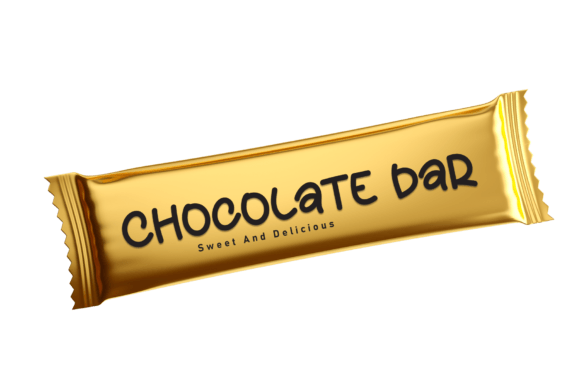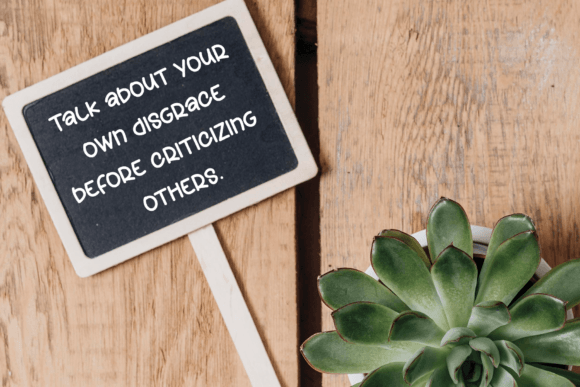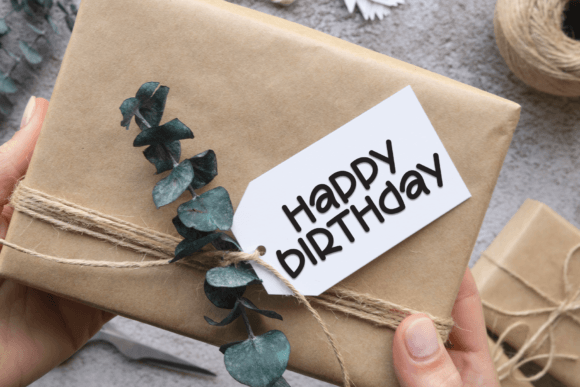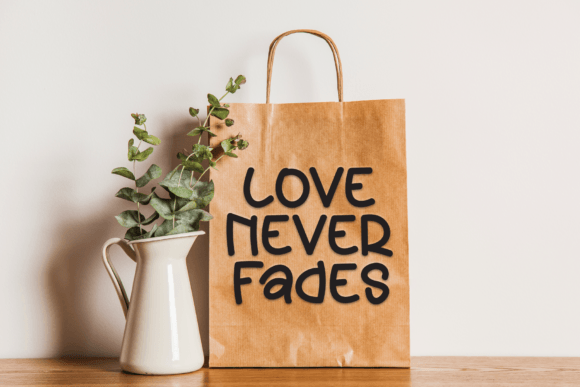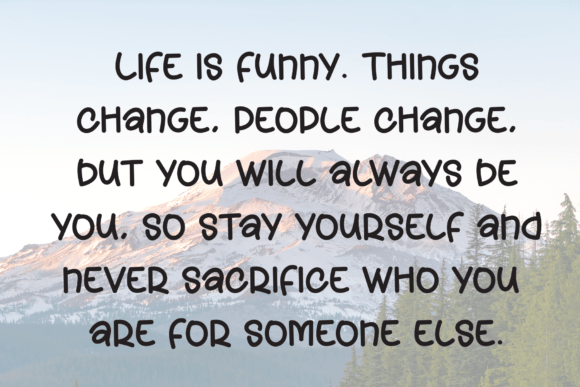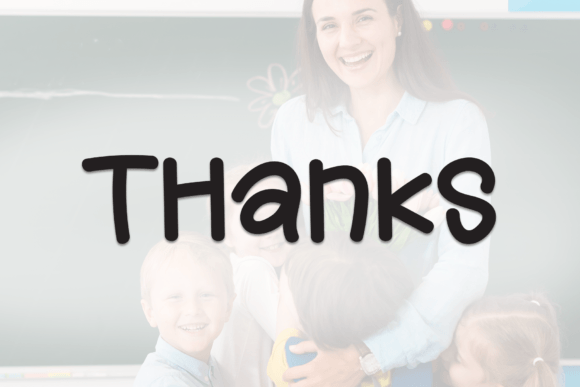
Introducing Happy Teacher Font: The Sweet and Friendly Handwritten Font for Creative Minds
Are you a designer, crafter, or DIY enthusiast looking for a font that can add a personal touch to your projects? Look no further than Happy Teacher Font, a sweet and friendly handwritten font that’s perfect for a wide range of designs. With its natural and unique style, Happy Teacher Font is incredibly versatile and can be used in various creative projects, from greeting cards and invitations to posters, stickers, and more.
The Characteristics of Happy Teacher Font
So, what makes Happy Teacher Font so special? Here are some of its key characteristics:
- Handwritten style: Happy Teacher Font has a beautiful, handwritten style that’s both sweet and friendly. Its natural look and feel make it perfect for designs that require a personal touch.
- Unique and distinctive: Unlike other fonts, Happy Teacher Font has a unique and distinctive style that’s sure to grab attention. Its quirky and playful vibe makes it perfect for designs that need to stand out.
- Versatile: Happy Teacher Font is incredibly versatile and can be used in a wide range of designs, from formal to informal projects.
- Easy to read: Despite its handwritten style, Happy Teacher Font is easy to read, making it perfect for designs that require a clear and legible font.
What Can You Use Happy Teacher Font For?
The possibilities are endless when it comes to using Happy Teacher Font. Here are some ideas to get you started:
- Greeting cards and invitations: Add a personal touch to your greeting cards and invitations with Happy Teacher Font. Its sweet and friendly style makes it perfect for special occasions like birthdays, weddings, and holidays.
- Posters and flyers: Use Happy Teacher Font to create eye-catching posters and flyers for events, promotions, or announcements.
- Stickers and labels: Happy Teacher Font is perfect for stickers and labels, adding a playful and whimsical touch to your designs.
- DIY projects: If you’re a crafter or DIY enthusiast, Happy Teacher Font is a great addition to your design toolkit. Use it to create unique and personalized designs for your projects.
Why Choose Happy Teacher Font?
So, why choose Happy Teacher Font over other fonts? Here are some reasons to consider:
- Unique style: Happy Teacher Font has a unique and distinctive style that’s sure to grab attention.
- High-quality: Happy Teacher Font is a high-quality font that’s designed to produce clear and crisp results.
- Support for multiple languages: Happy Teacher Font supports multiple languages, making it perfect for international designs.